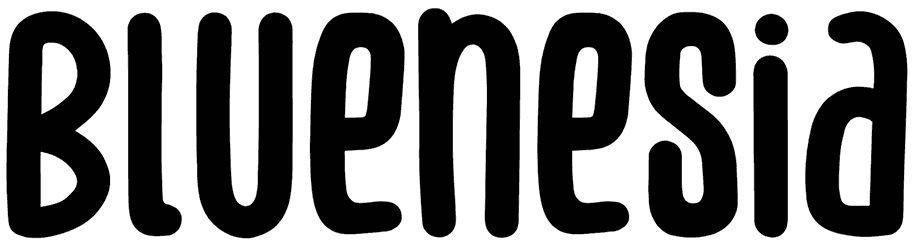
Bluenesia Font
Since the chunky style of Bluenesia’s characters is very expressive, this cartoon font can be seriously considered for a wide range of graphic content, including illustrations, digital banners, animation posters, or editorial projects. Its bold and significant letters can reinforce a vibe of vitality, dynamism, or jauntiness in all of your works.